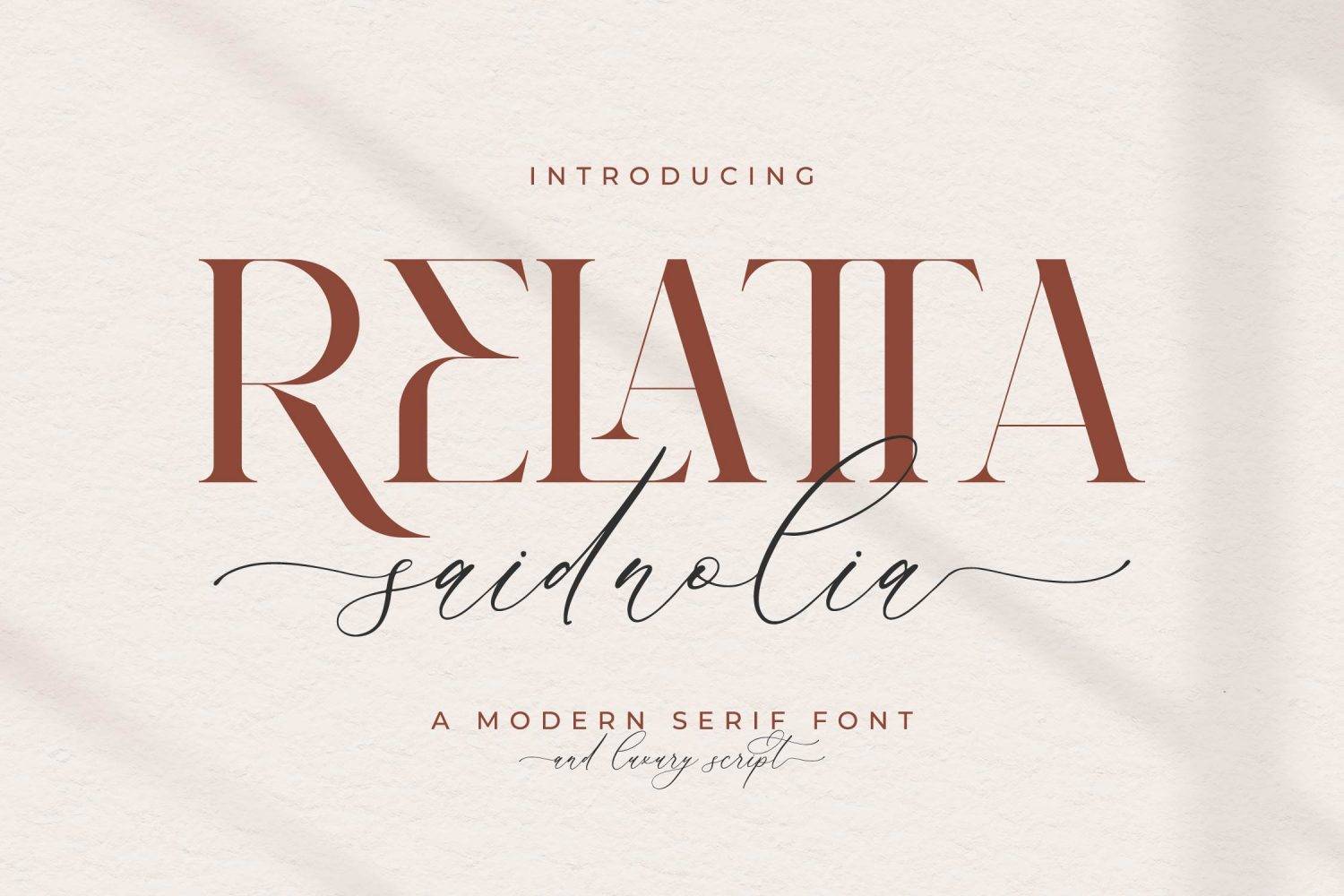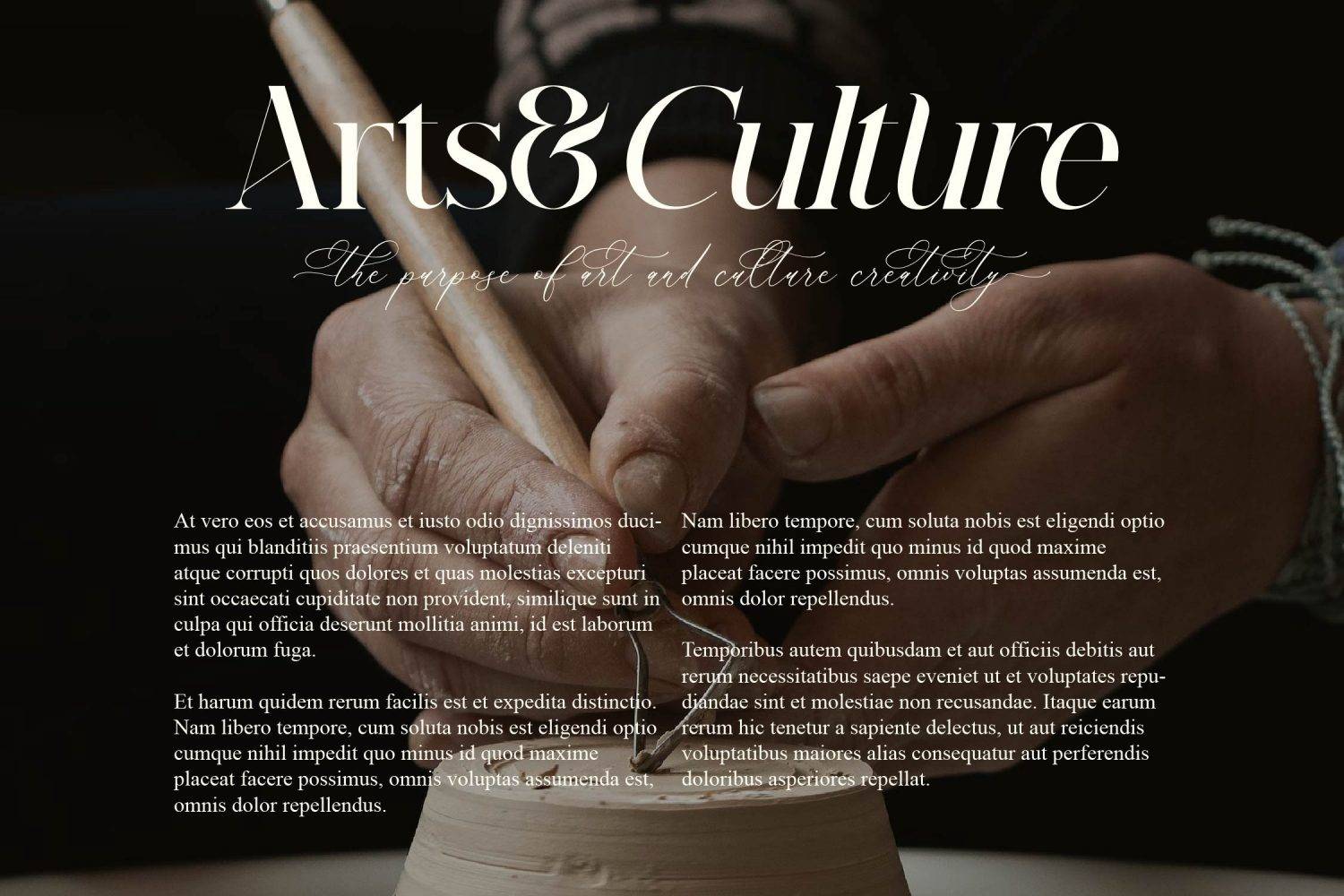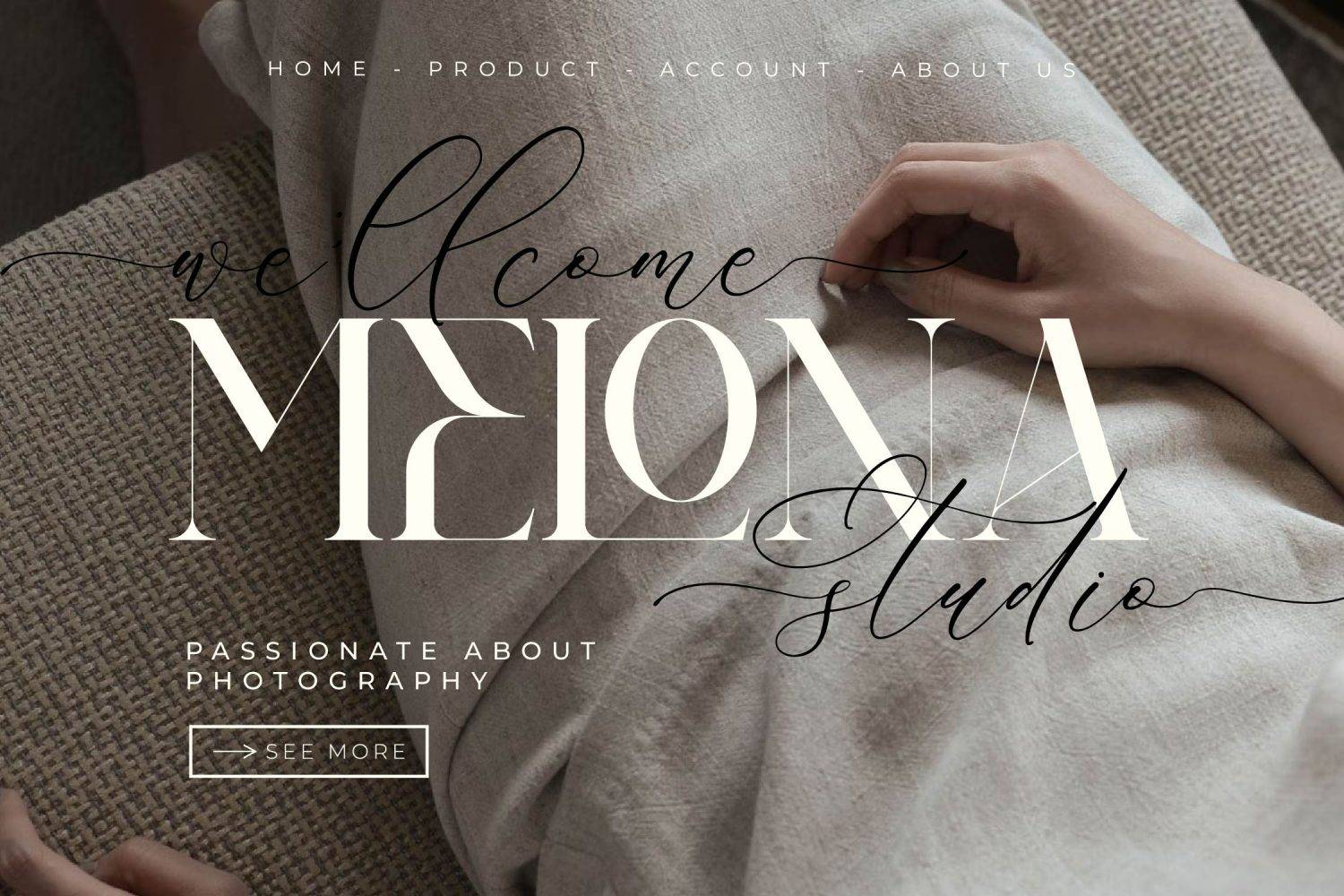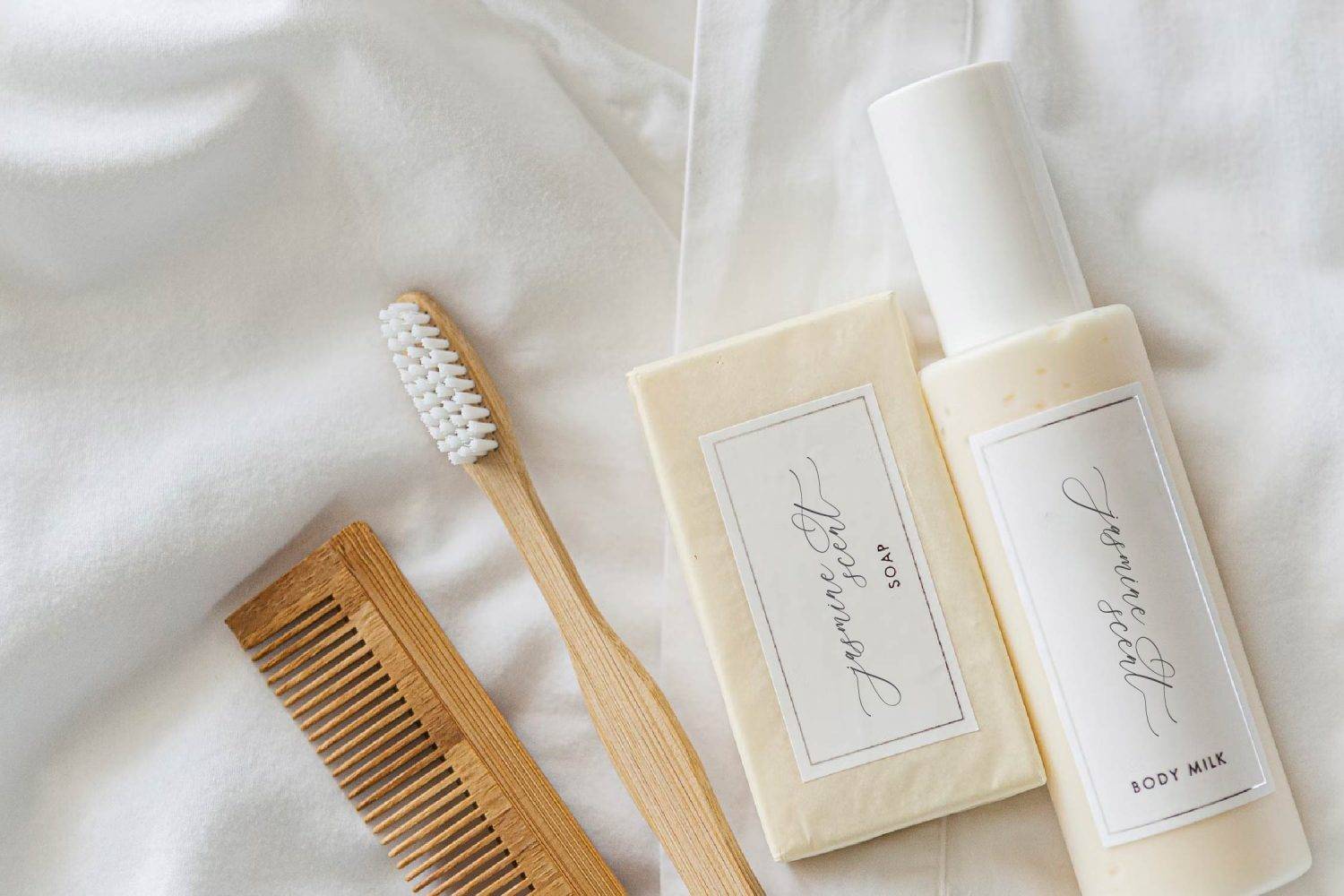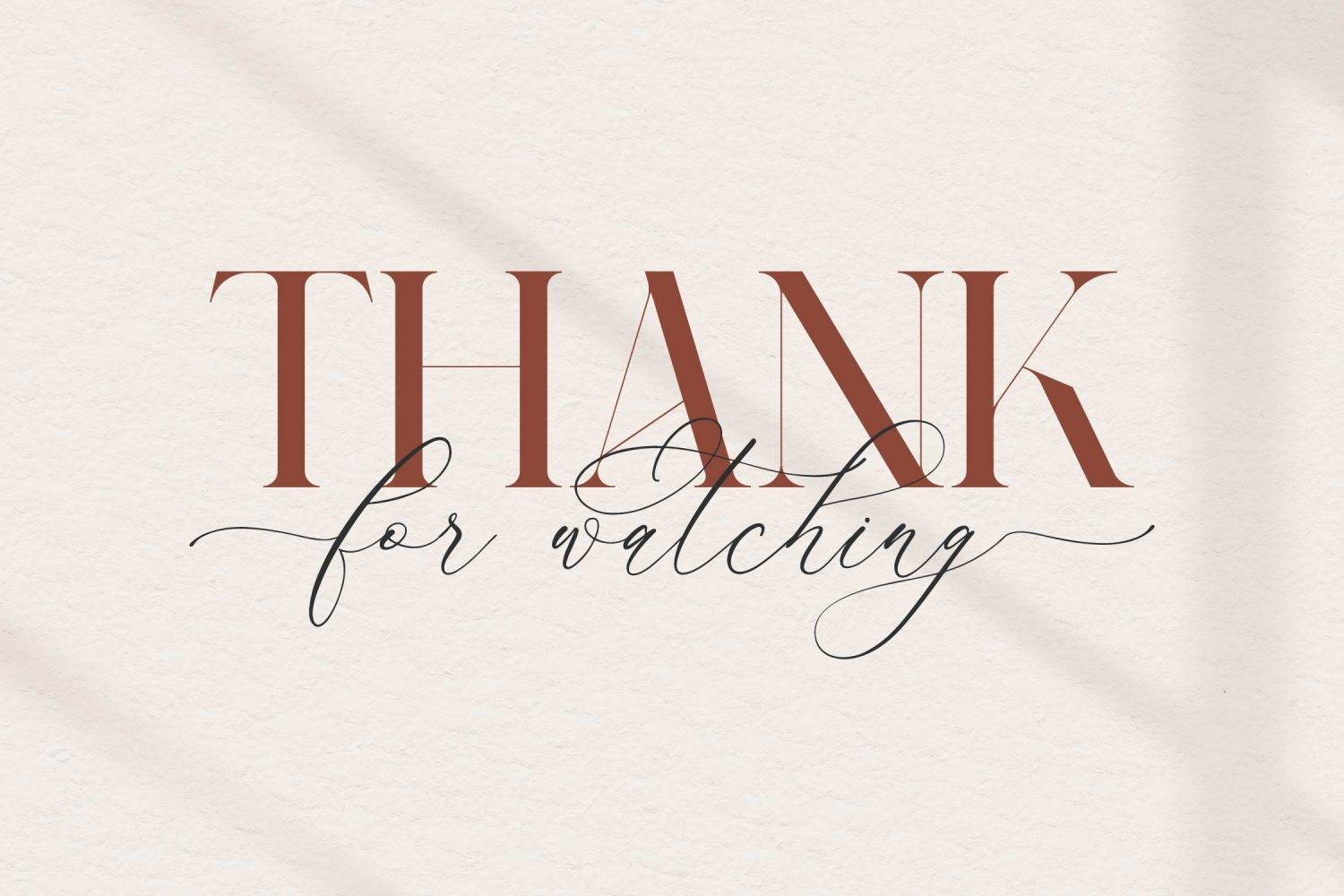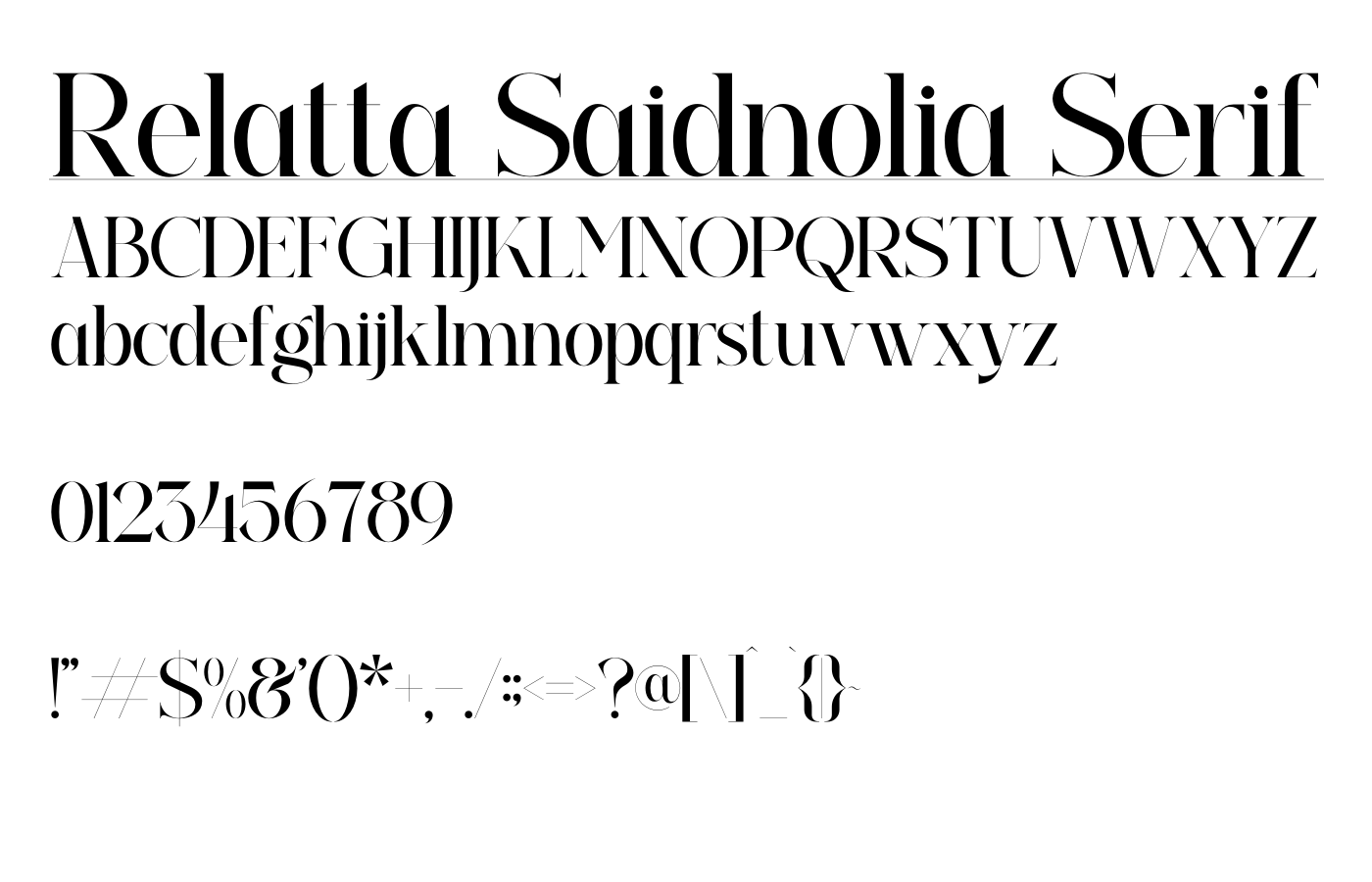
Relatta Saidnolia is an elegant serif typeface that features a high contrast between thick and thin strokes, with sharp, refined serifs and a tall x-height that adds a modern sophistication. Its delicate, slightly condensed letterforms and unique stylistic details create a luxurious and artistic feel, making it perfect for upscale branding, editorial headlines, and fashion-oriented design projects where a distinctive, polished look is desired.
Relatta Saidnolia Font
About Relatta Saidnolia Font